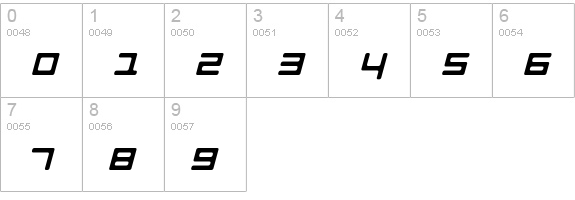
LuggageRoundRegularObl font is a charming and versatile typeface that exudes a sense of friendliness and approachability. With its rounded edges and balanced proportions, this font is perfect for a wide range of design projects, from invitations to branding to social media graphics. The playful yet polished appearance of LuggageRoundRegularObl makes it a great choice for adding a touch of personality to your work. The best part is that LuggageRoundRegularObl font is available for free download at FontsMarket.com. Whether you're a designer looking to expand your font library or a hobbyist looking for a fresh new typeface to play with, LuggageRoundRegularObl is a fantastic option. Don't miss out on this opportunity to enhance your designs with this delightful and freely accessible font.